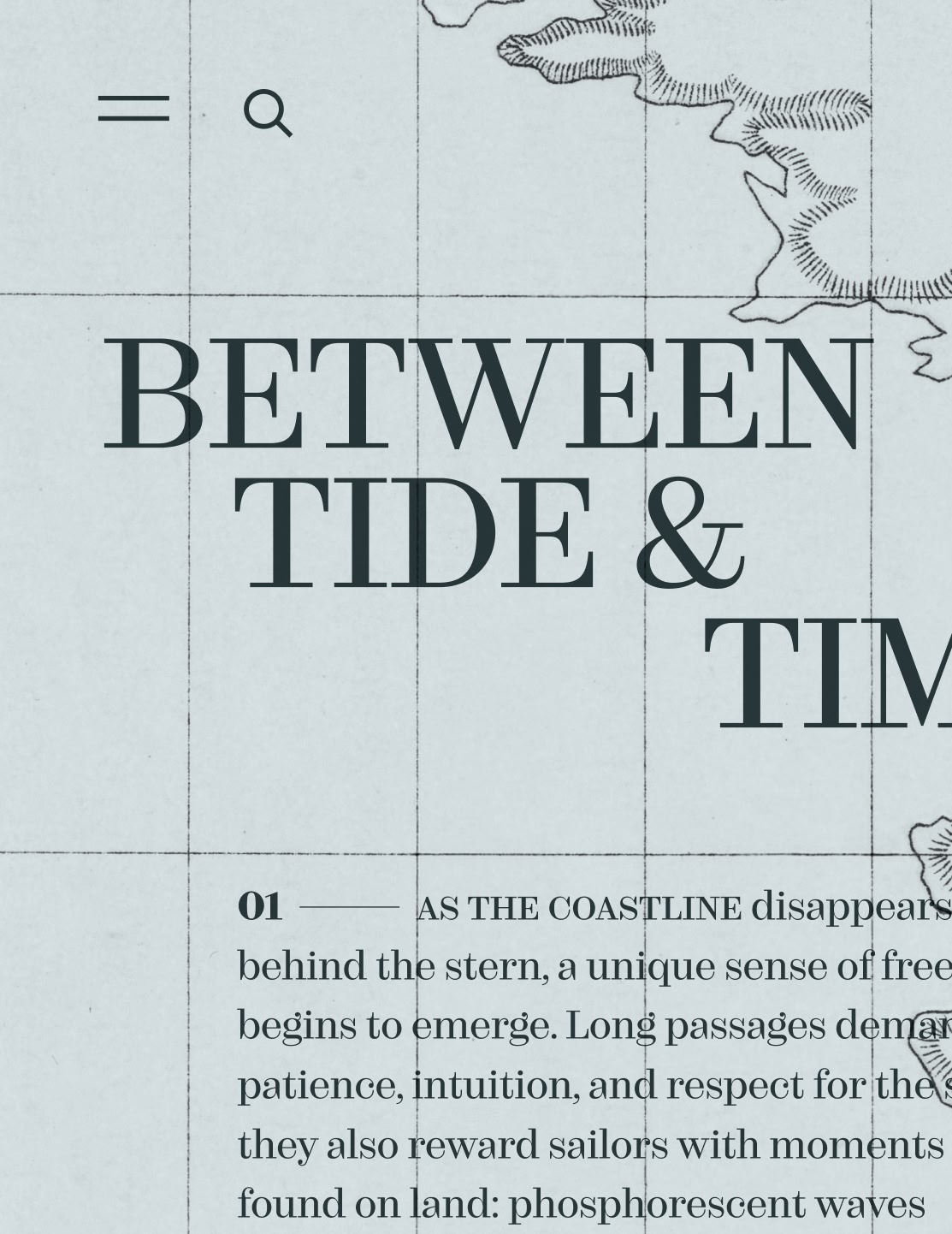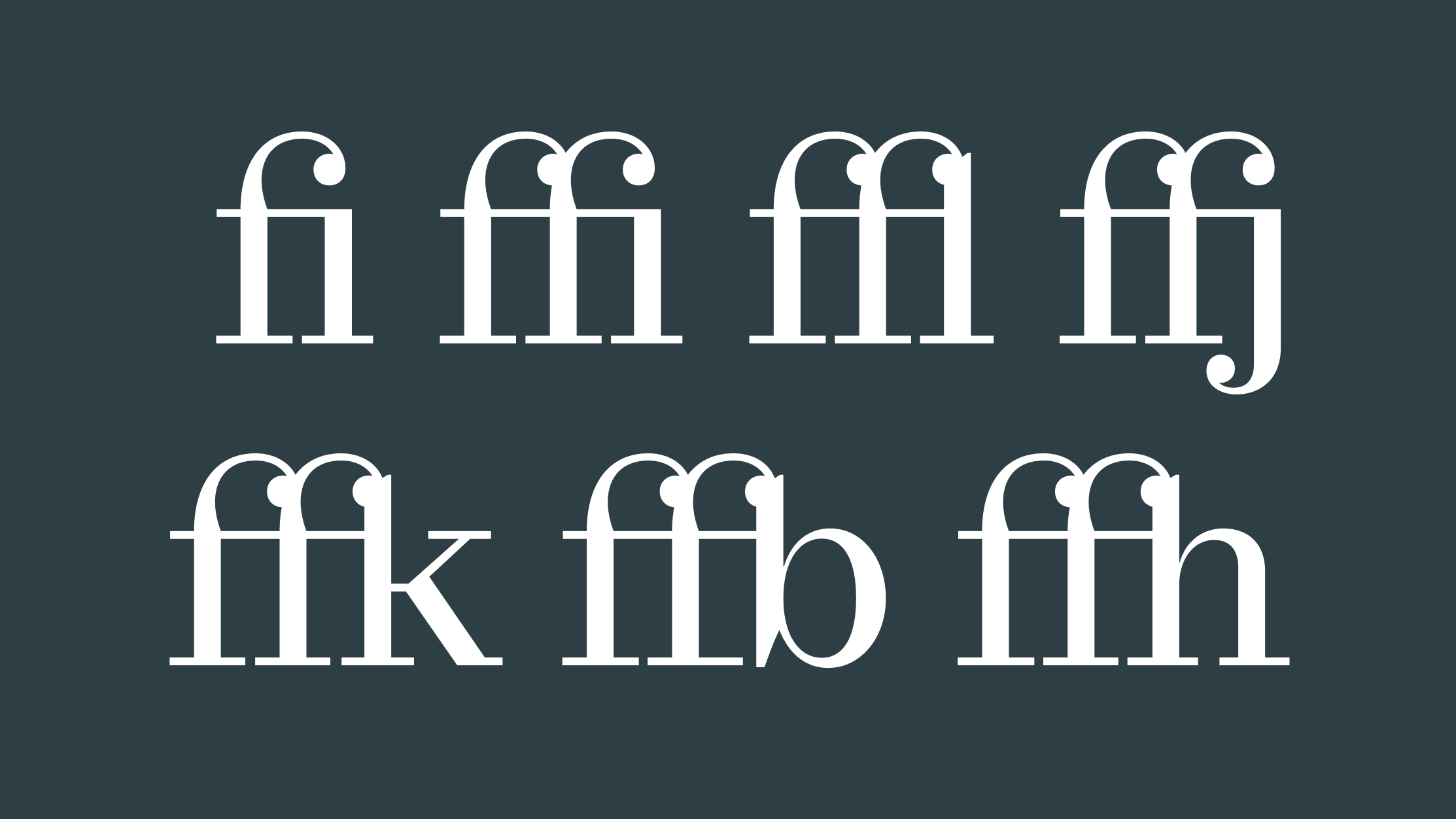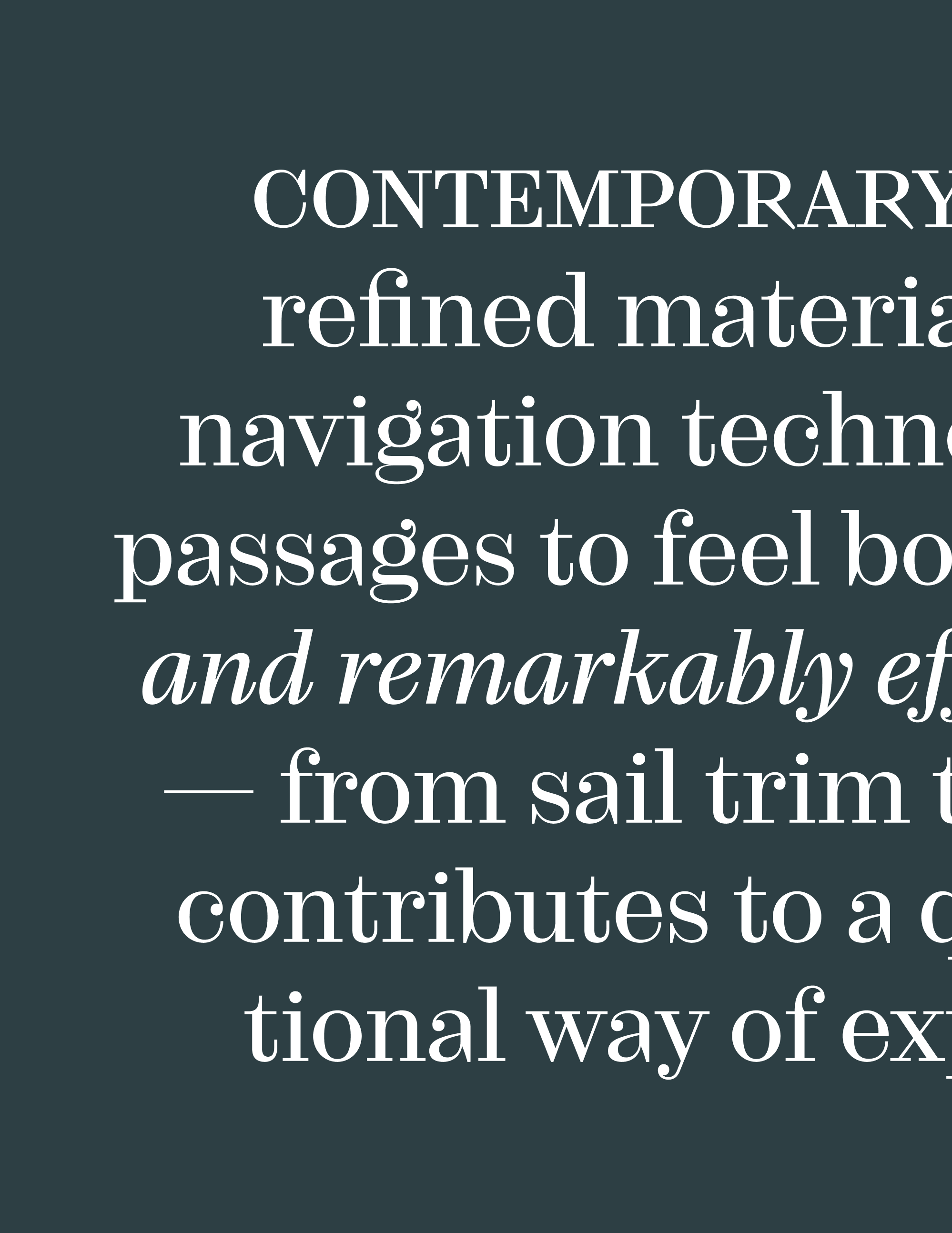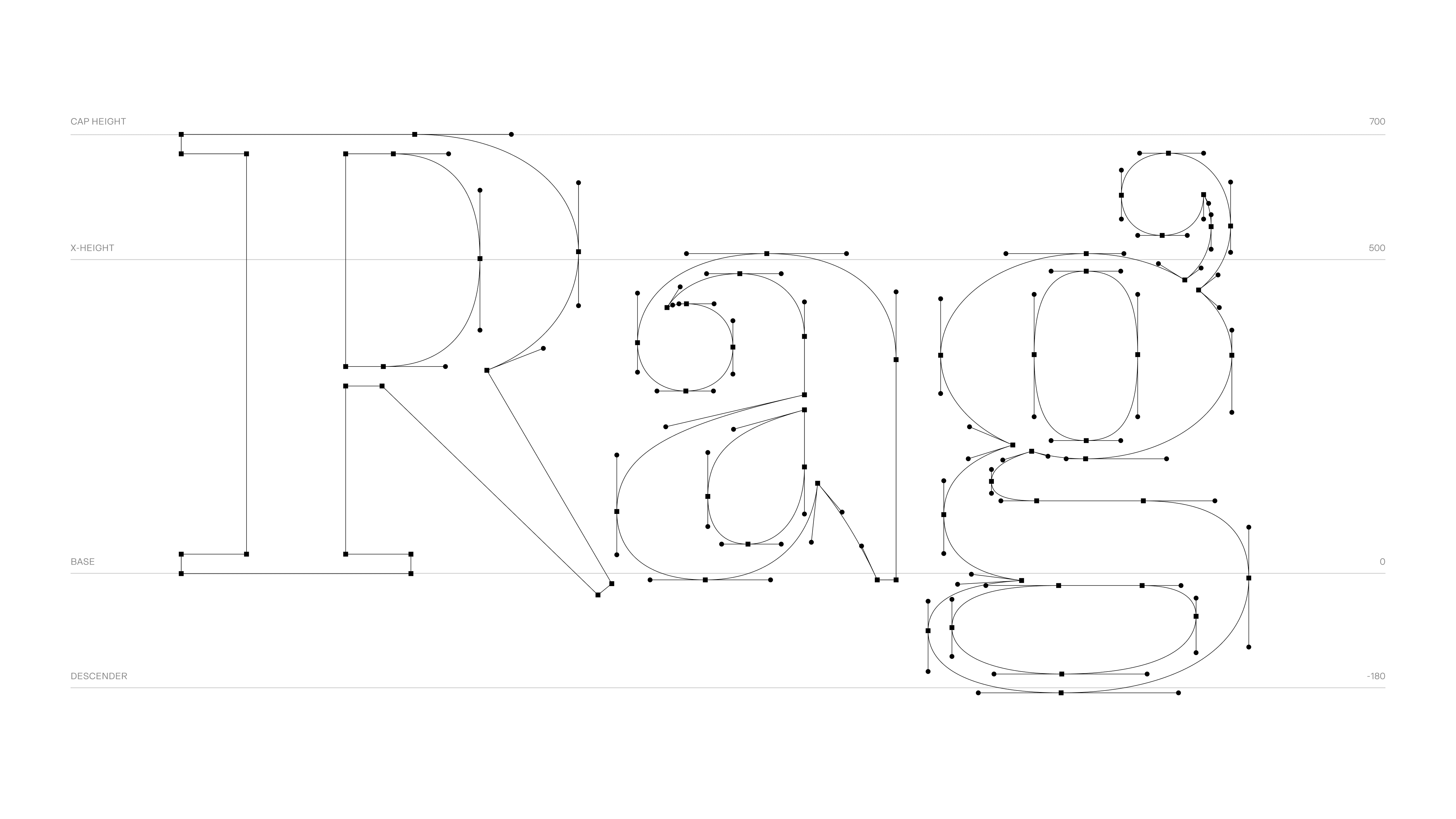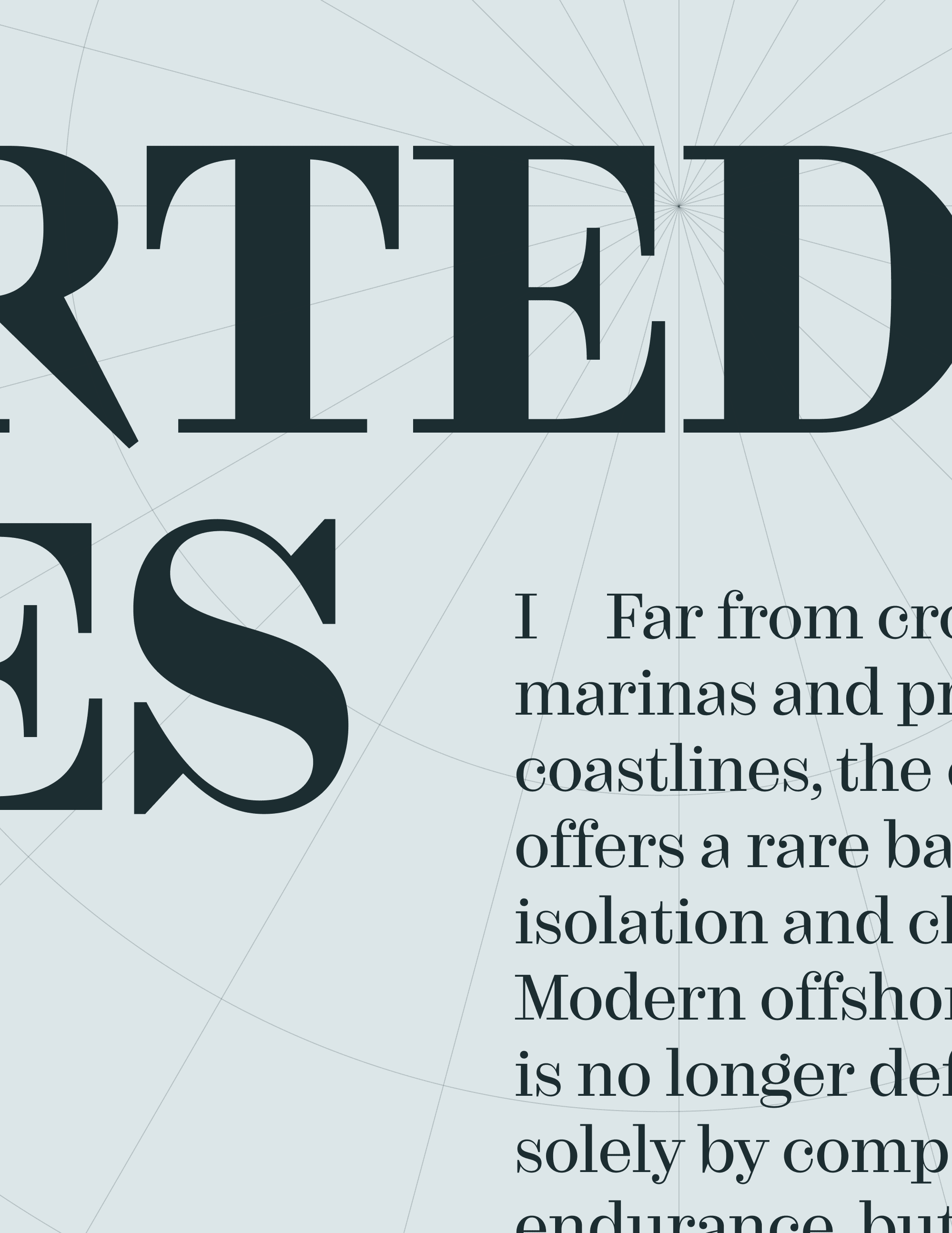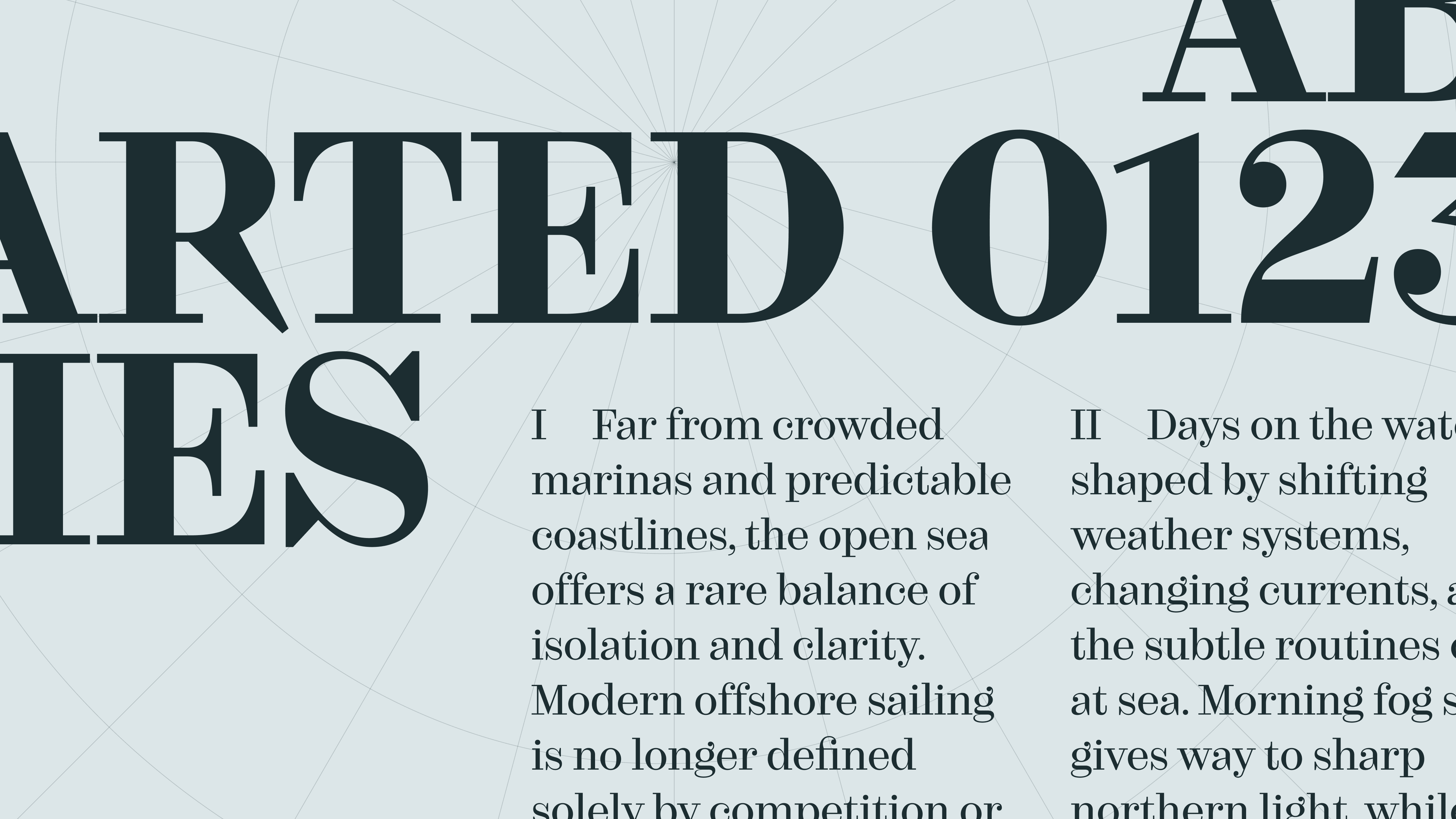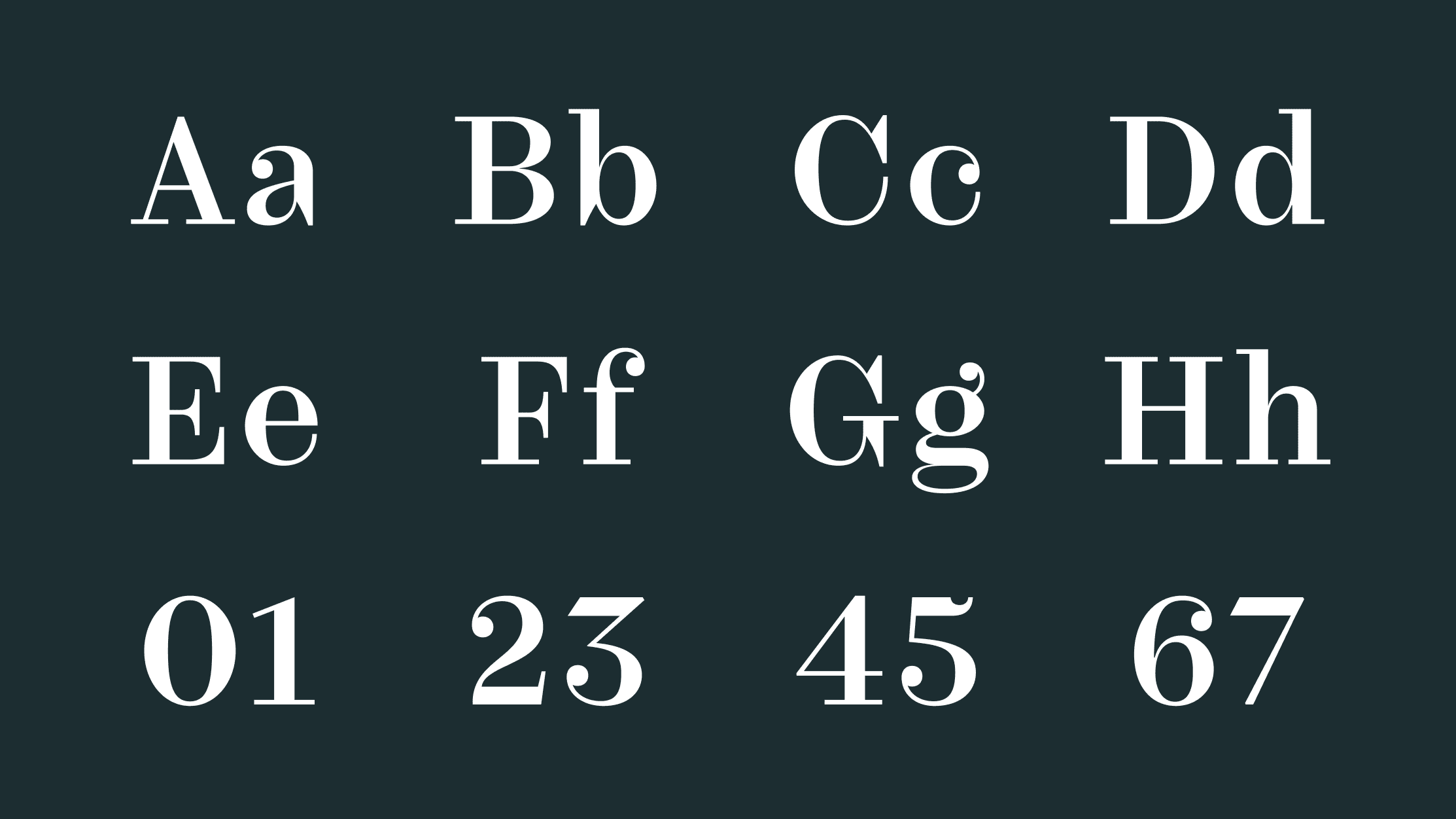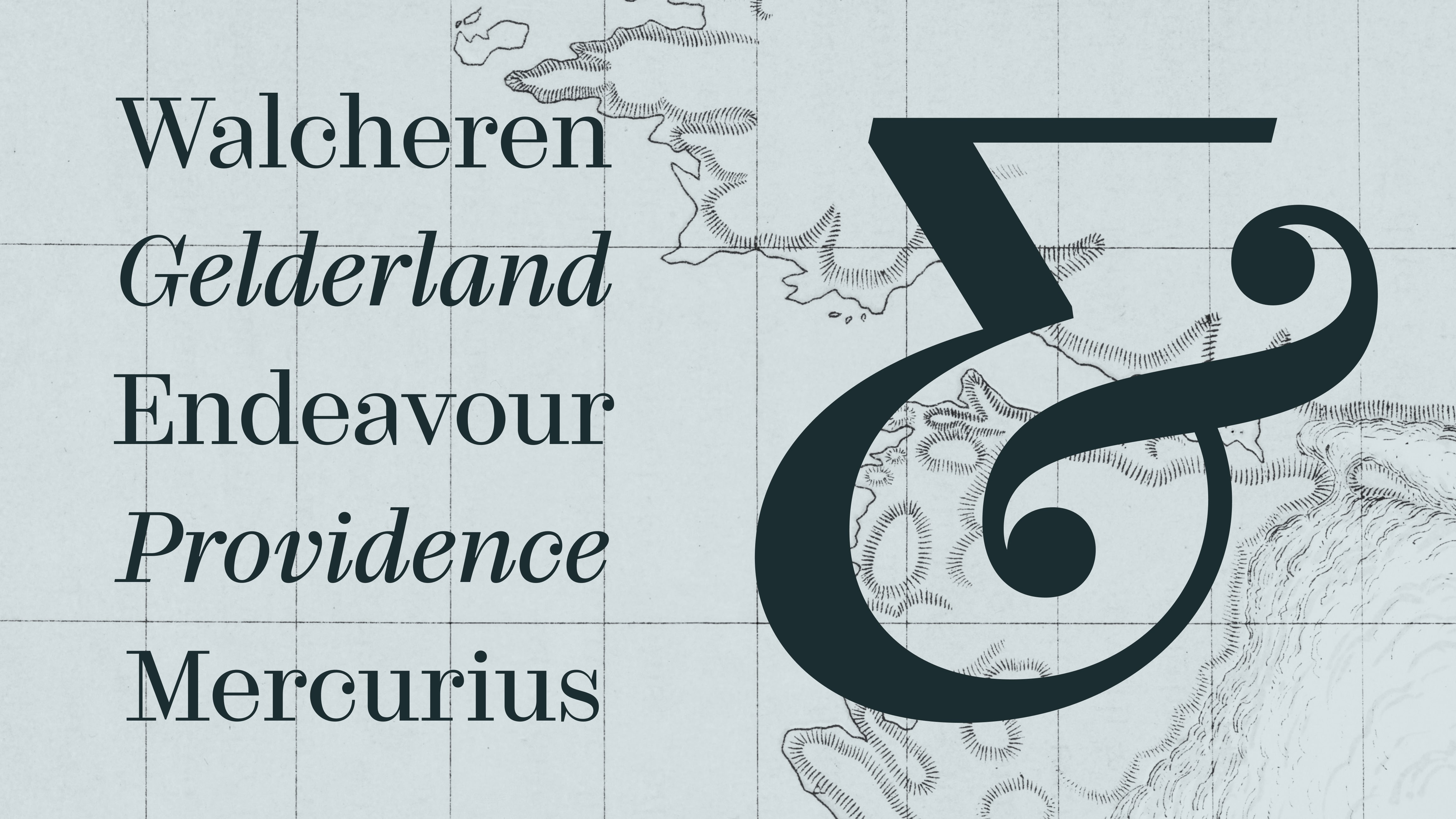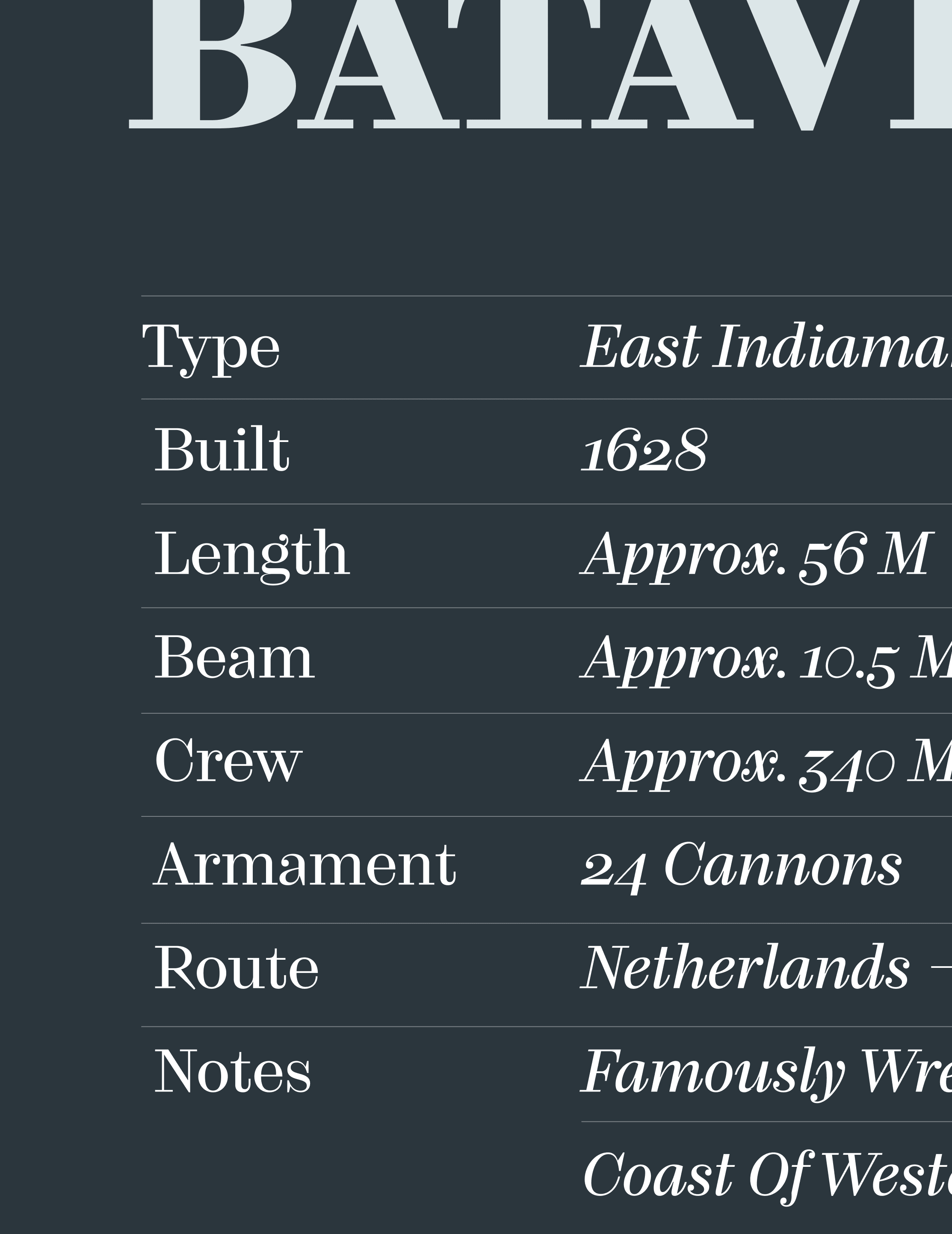
Kreol Headline adapts the expressive forms of 19th-century type design for larger sizes. Defined by increased contrast, refined details, and balanced proportions, it is designed for headlines, editorial work, and visual identities. Kreol is also available in Kreol Text and Kreol Display subfamilies.